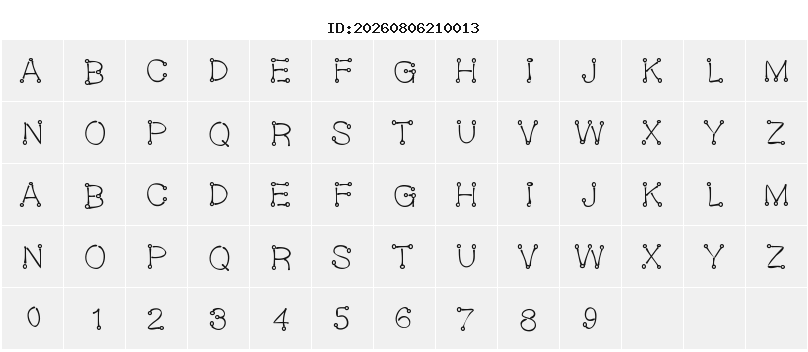
Oeillet Preview
• Font Name: Oeillet
• Font ID: Gaelleing:Oeillet
• Full Font Name: Oeillet
• PostScript Name: Oeillet
• Character Count: 63
About Oeillet.ttf
Oeillet.ttf is a modern, elegant sans-serif font designed for ultimate readability and visual harmony. Perfect for branding, headlines, web design, and print materials.